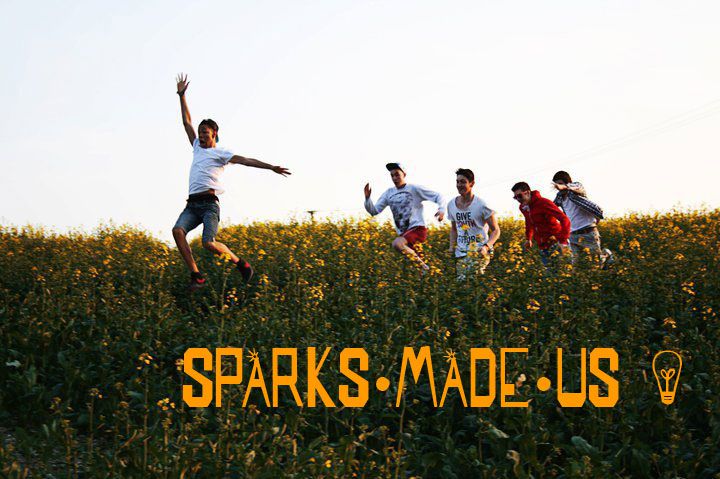
Шрифт Sparks Made Us
This is the stripped back freeware version for personal use only of the band's official font it only contains all 26 letters, embedding is NOT allowed. This excellent 5 piece indie band are called Sparks Made us, you can follow them and sample their music here;